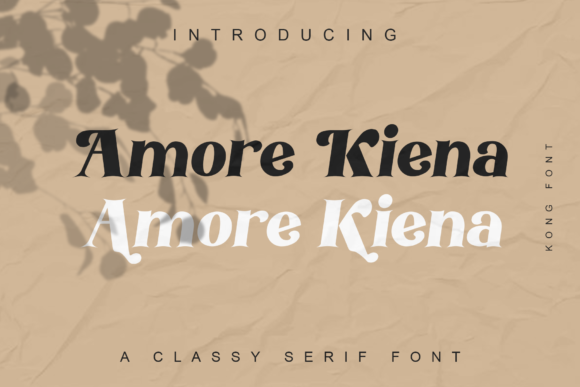
Introducing Amore Kiena Font, the striking serif typeface that adds a touch of elegance and sophistication to your digital creations. Crafted by the skilled hands at Kong Font Studio, Amore Kiena is the perfect choice for artists, designers, and crafters seeking a font that combines beauty and functionality.
With its intricate curves and distinctive serifs, Amore Kiena exudes a timeless charm that captivates the eyes. This modern font brings a sense of sophistication to any project, whether it's a website, a logo, or a social media post. Its versatility knows no bounds, allowing you to effortlessly elevate your designs and make a lasting impression.
Immerse yourself in the world of Amore Kiena and discover the endless possibilities it holds. Create eye-catching headlines that grab attention, craft elegant invitations that leave a lasting impression, or design stunning social media graphics that engage your audience. The possibilities are truly endless.
Amore Kiena is not just a font; it's an experience. Its smooth, flowing lines and graceful letterforms create a visual symphony that dances across the screen. Every stroke, every curve, every serif is meticulously crafted to evoke emotions and convey messages with clarity and impact.
Whether you're a seasoned designer or just starting your creative journey, Amore Kiena is the perfect companion. Its user-friendly nature makes it accessible to all, while its versatility ensures that your designs always stand out from the crowd.